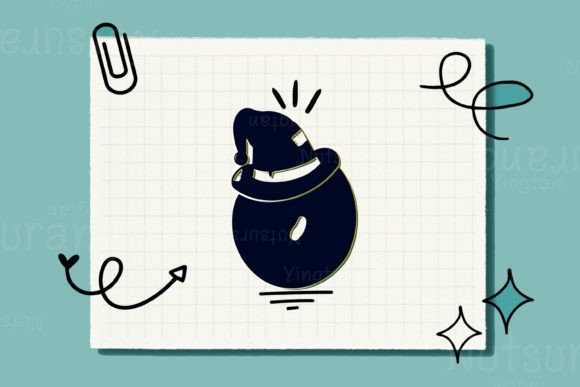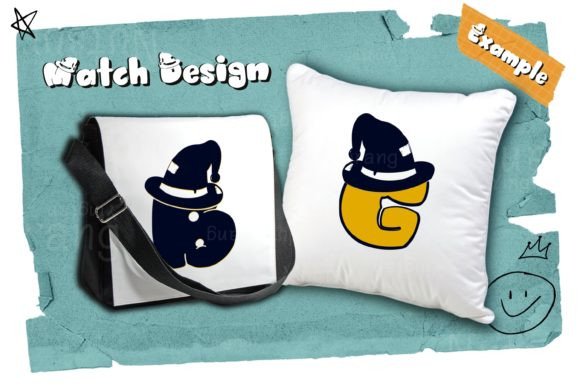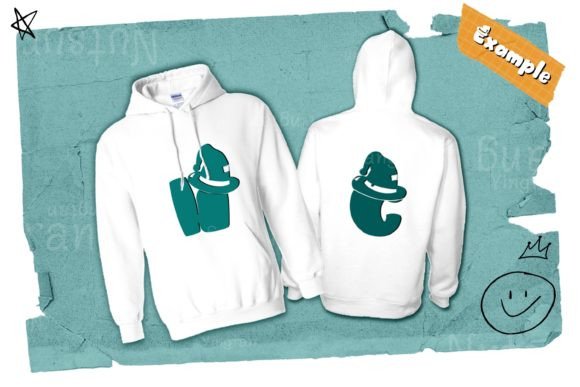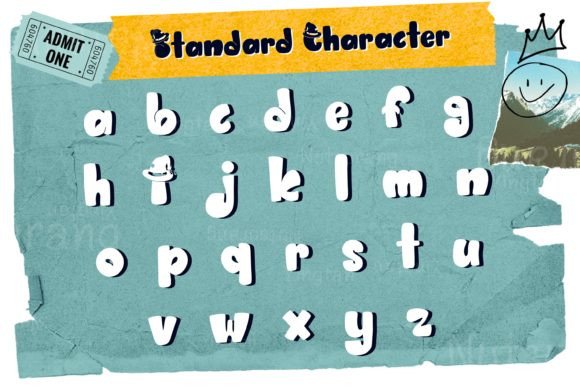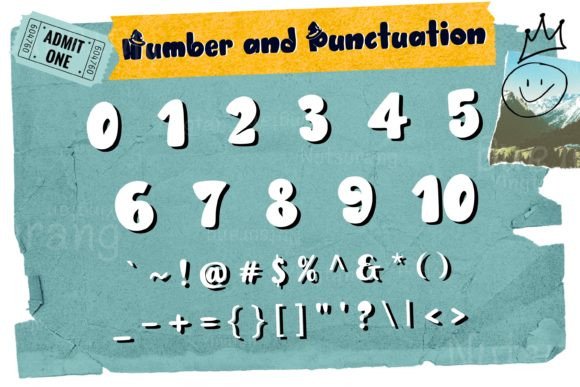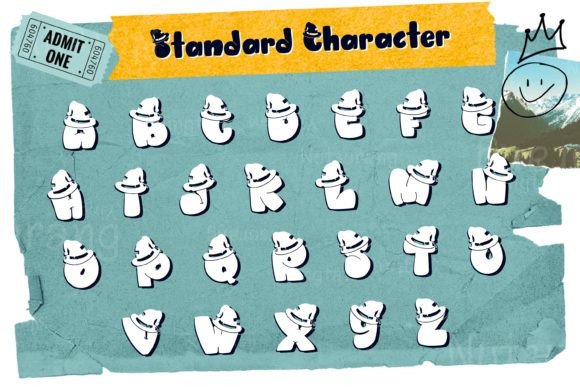
Introducing Hat Character Font: Add a Joyful Touch to Your Designs
Are you looking for a font that can add a playful and quirky touch to your designs? Look no further than Hat Character Font! This adorable display font is perfect for designers and crafters who want to make their creative projects stand out. In this article, we’ll explore the features and benefits of Hat Character Font and show you how to incorporate it into your designs.
What is Hat Character Font?
Hat Character Font is a cute and quirky display font designed to bring a joyful touch to your designs. Its unique and playful style makes it perfect for a variety of creative projects, from greeting cards and invitations to posters and social media graphics. With Hat Character Font, you can add a personal touch to your designs and make them more engaging and memorable.
Key Features of Hat Character Font
- Cute and Quirky Design: Hat Character Font features a unique and playful design that is sure to capture the attention of your audience.
- Display Font: This font is specifically designed as a display font, making it perfect for headlines, titles, and other prominent text elements.
- Easy to Read: Despite its playful design, Hat Character Font is easy to read and understand, making it perfect for use in a variety of creative projects.
- Versatile: Hat Character Font can be used in a variety of creative projects, from digital designs to print materials.
Benefits of Using Hat Character Font
There are many benefits to using Hat Character Font in your designs. Here are just a few:
- Adds a Personal Touch: Hat Character Font allows you to add a personal touch to your designs, making them more unique and engaging.
- Increases Engagement: The playful design of Hat Character Font is sure to capture the attention of your audience and increase engagement with your designs.
- Perfect for Branding: Hat Character Font can be used to create a consistent brand identity across a variety of marketing materials.
How to Use Hat Character Font
Using Hat Character Font in your designs is easy! Here are a few tips to get you started:
- Pair with Other Fonts: Hat Character Font can be paired with other fonts to create a unique and visually appealing design.
- Use for Headlines and Titles: Hat Character Font is perfect for use in headlines and titles, where its playful design can really shine.
- Add to Digital Designs: Hat Character Font can be used in a variety of digital designs, from social media graphics to website headers.
- Experiment with Colors: Hat Character Font looks great in a variety of colors, so don’t be afraid to experiment and find the perfect color for your design.
Here are a few tips and tricks for designers and crafters who want to get the most out of Hat Character Font:
- Use for Party Invitations: Hat Character Font is perfect for use in party invitations, where its playful design can add a fun and festive touch.
- Create Custom Graphics: Hat Character Font can be used to create custom graphics, such as logos and icons.
- Add to Print Materials: Hat Character Font can be used in a variety of print materials, from brochures and flyers to posters and business cards.
- Experiment with Different Sizes: Hat Character Font looks great in a variety of sizes, so don’t be afraid to experiment and find the perfect size for your design.